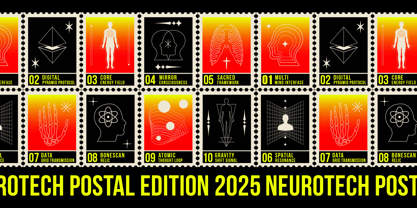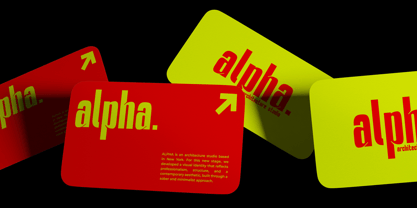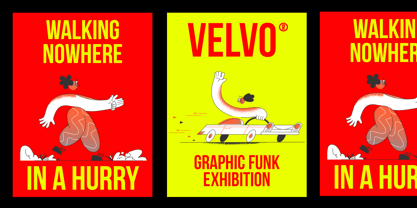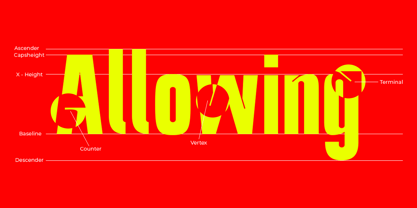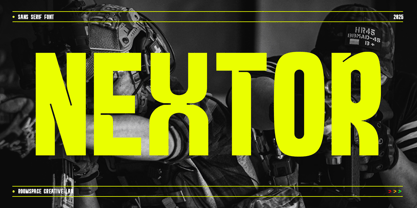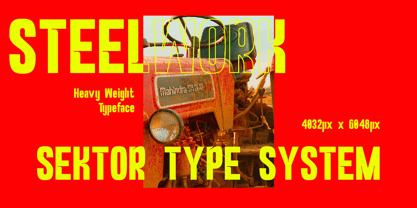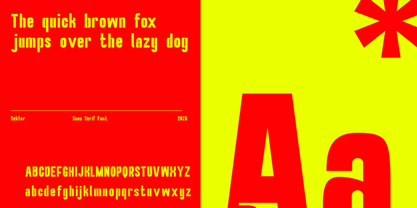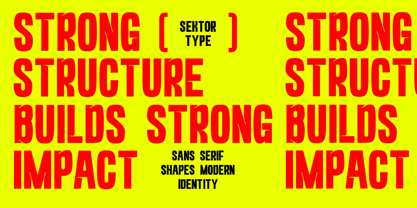
Nextor
by Jafar07
The Nextor Font Family was designed by Bakhrudin Ja'far and published by Jafar07. Nextor contains 2 styles and family package options.
Nextor is a powerful condensed sans serif font designed to make a statement. Its bold, modern style gives your headlines, sports team logos, posters, and branding designs an unmistakable edge. With strong geometric shapes and tight spacing, Sektor captures attention instantly and conveys confidence and energy. Perfect for brands that want to look dynamic, fearless, and ready to dominate. Upgrade your design game with Nextor where boldness meets modern style. Nextor is a bold and condensed sans serif typeface built for power, clarity, and high-impact visual presence. With sharp geometry, tight spacing, and a strong industrial influence, Nextor delivers a modern aesthetic that feels confident and versatile across branding, headlines, and digital interfaces. Designed for maximum readability and visual punch, every letterform in Nextor is crafted with a sleek, contemporary structure making it perfect for logos, sports themes, tech designs, posters, and bold display typography. Its condensed proportions allow you to create dense, eye-catching layouts without sacrificing balance. From dynamic esports graphics to professional corporate branding, Sektor adapts effortlessly, giving your project a clean yet assertive character.